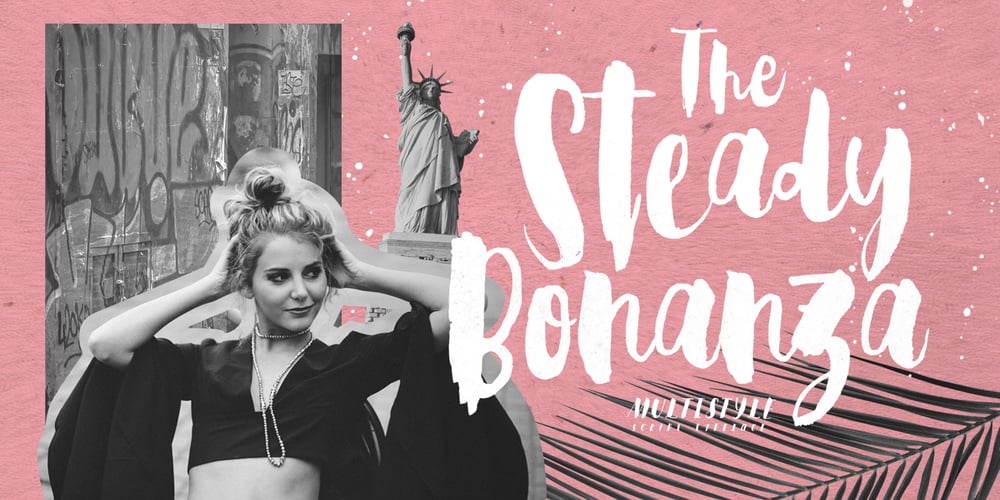
Steady Bonanza Font Family was designed by Ian Irwan Wismoyo and published by Just Font You. Steady Bonanza contains 5 styles and family package options. Fashion is a trend, Style lives within a person *Oscar de la Rerta. I believe everybody’s special. You have your own original character in every single appearance. And i feel so addicted to bring that something special in you to be shown to the universe. And that’s what it cames from. Introducing, Steady Bonanza. A versatile hand lettering script typeface to dig up your authentic style. Made from the authenticity of brush and ink character, and delivers with so many style so you can always show up fresh in every use of it. Undoubtedly fit for your fashion branding, logo, posters, promotions kit, social media post, brochure, quote, lookbook, and a possibility to expand more such as wedding stuff, food and beverage, girly things, hand crafted stuff, you got the full control on it, dont stop yourself!